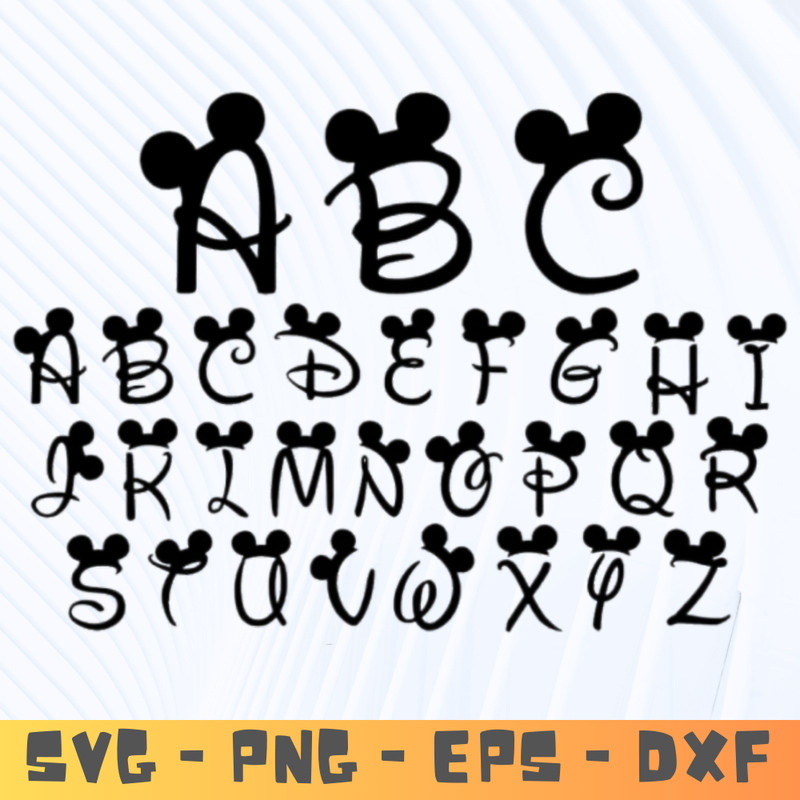
Mickey Themed Font Bundle , 26 Letters SVG Set , Fun Mickey Mouse Alphabet Font , Digital Downloadable Font Set
Mickey Ears Alphabet Font - Decorative Font Bundle (SVG)
Adorned with Mickey Mouse’s iconic ears, this font is the perfect complement to all your digital and print projects. Download this 26-letter set instantly and use it for birthday invitations, nursery decorations, or personal projects. Available in both SVG and PNG formats.